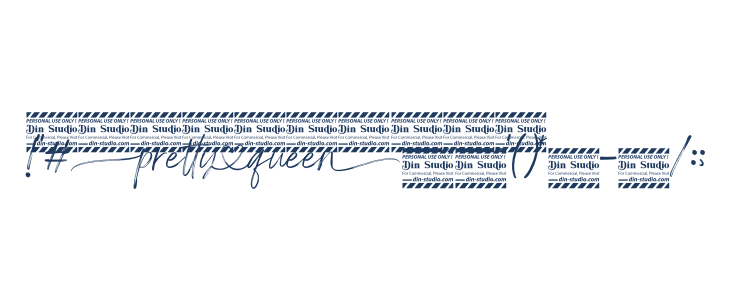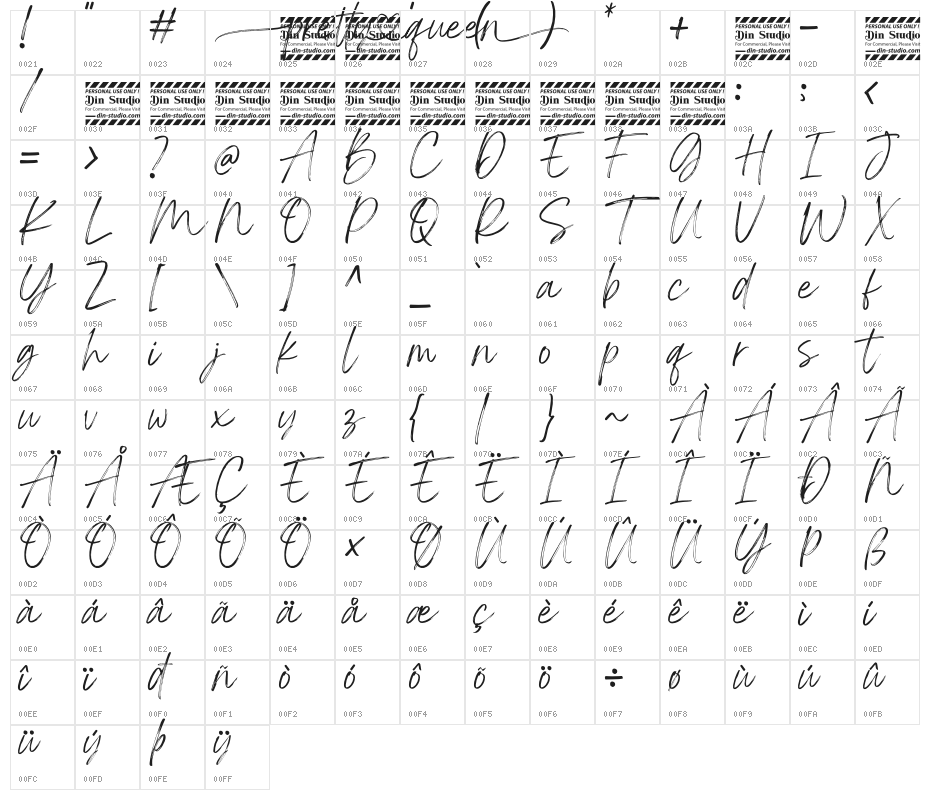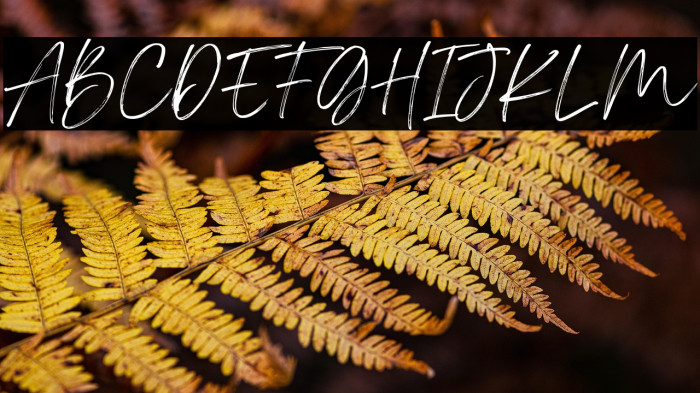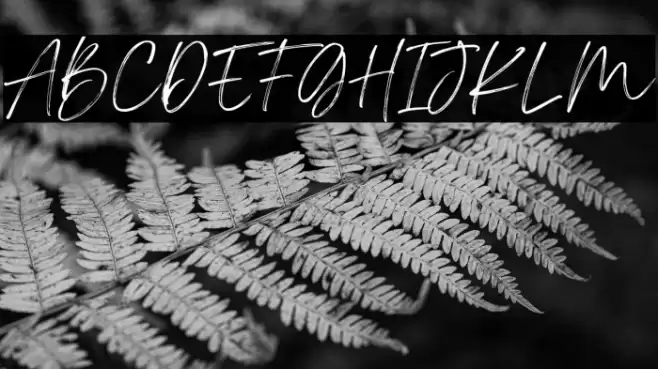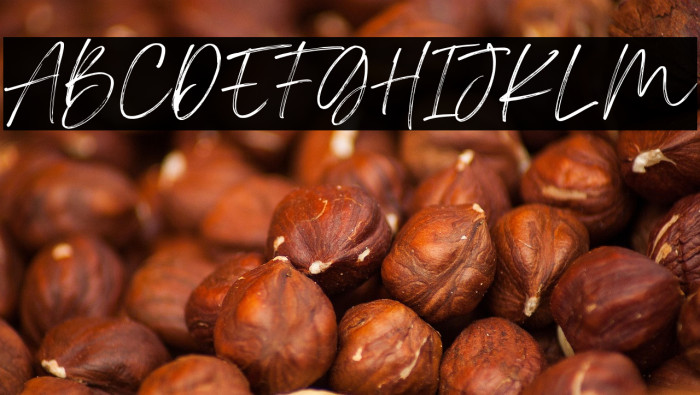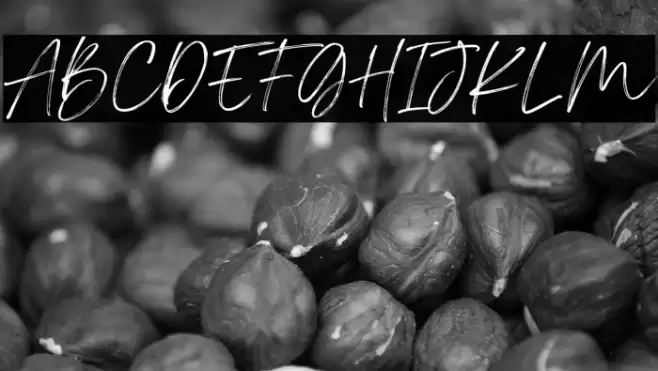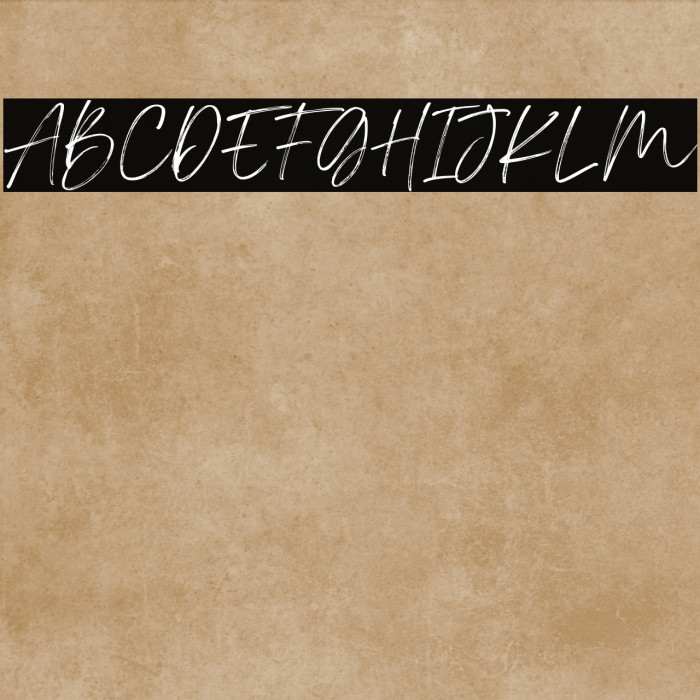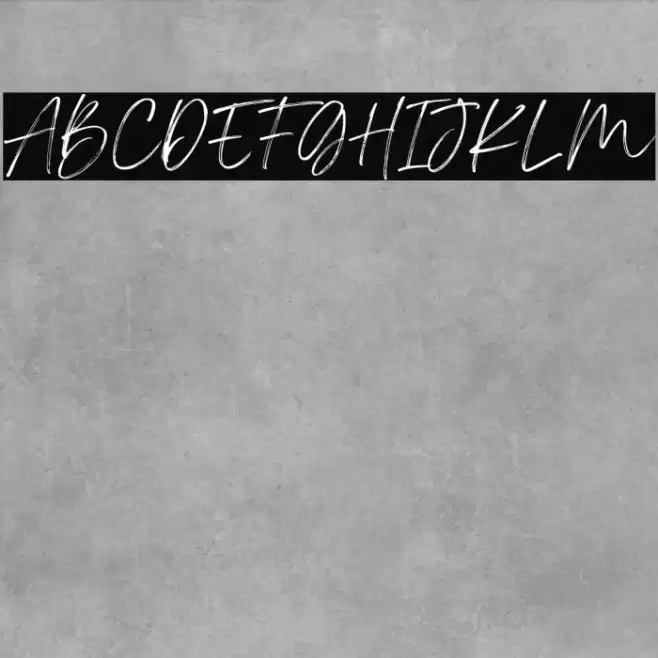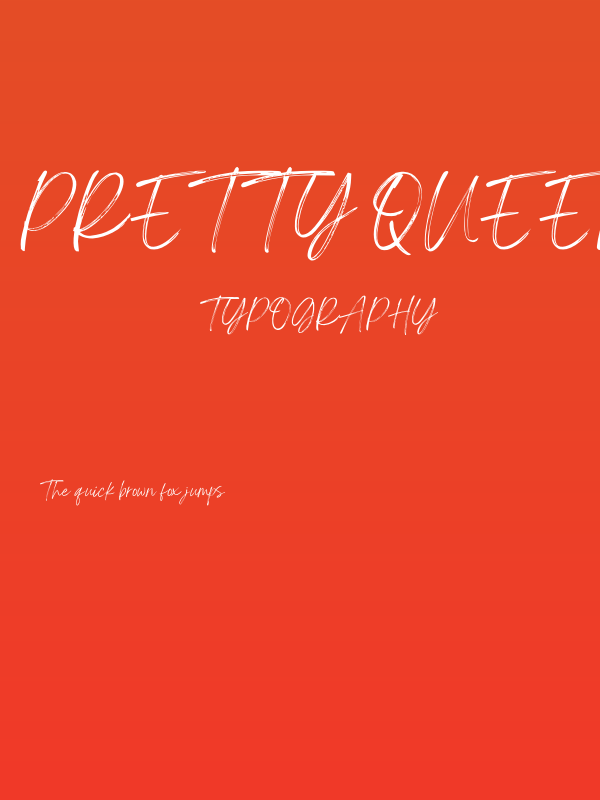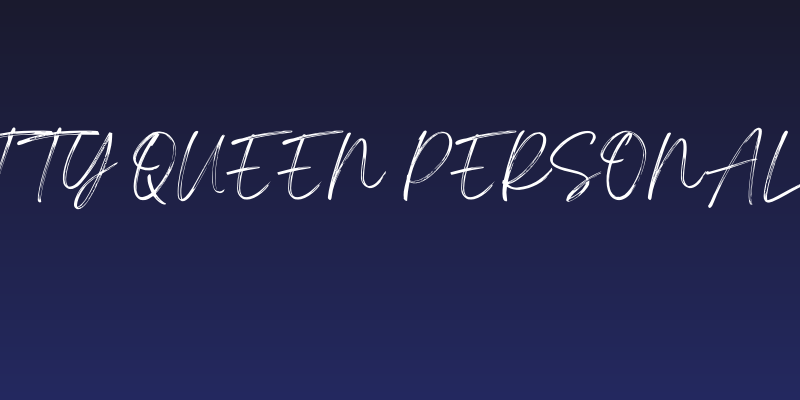
Pretty Queen Personal Use Font
Pretty Queen Personal Use Description
This font features an elegant and flowing handwritten style, characterized by its fluid and dynamic strokes. The uppercase letters are tall and slender, with a slight slant that adds a sense of motion and grace. The lowercase letters maintain a consistent style, with loops and curves that enhance the handwritten feel. The numbers and special characters are crafted with the same attention to detail, ensuring a cohesive look across all characters. This font exudes a sense of sophistication and creativity, making it ideal for projects that require a personal and artistic touch.
| Overall Style | Elegant, Artistic |